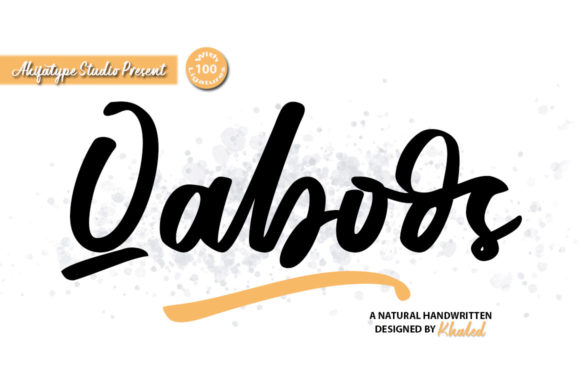
Embark on a journey of artistic expression with Qaboos, the captivating script font that brings a touch of elegance and charm to your digital creations. Crafted with meticulous care by akifatype, this font exudes a chic and trendy vibe, making it the perfect choice for those seeking a unique and stylish font.
Step into a world of creative possibilities with Qaboos, where your words dance across the screen with grace and fluidity. This font's enchanting curves and delicate strokes evoke a sense of sophistication that will elevate your designs to new heights. Whether you're a seasoned designer or just starting, Qaboos is the perfect font to add a touch of magic to your projects.
With Qaboos, you'll find endless opportunities to express yourself creatively. From stunning logos and eye-catching social media posts to elegant invitations and heartfelt letters, this font will add a touch of refinement and personality to all your endeavors. Its versatility knows no bounds, making it a must-have for any designer's toolkit.
Unleash your creativity and let Qaboos guide you to extraordinary results. This font's boundless potential will inspire you to create designs that captivate and enchant your audience. Its carefully crafted glyphs and swashes, accessible with ease through PUA encoding, open up a world of possibilities for customization and personalization.